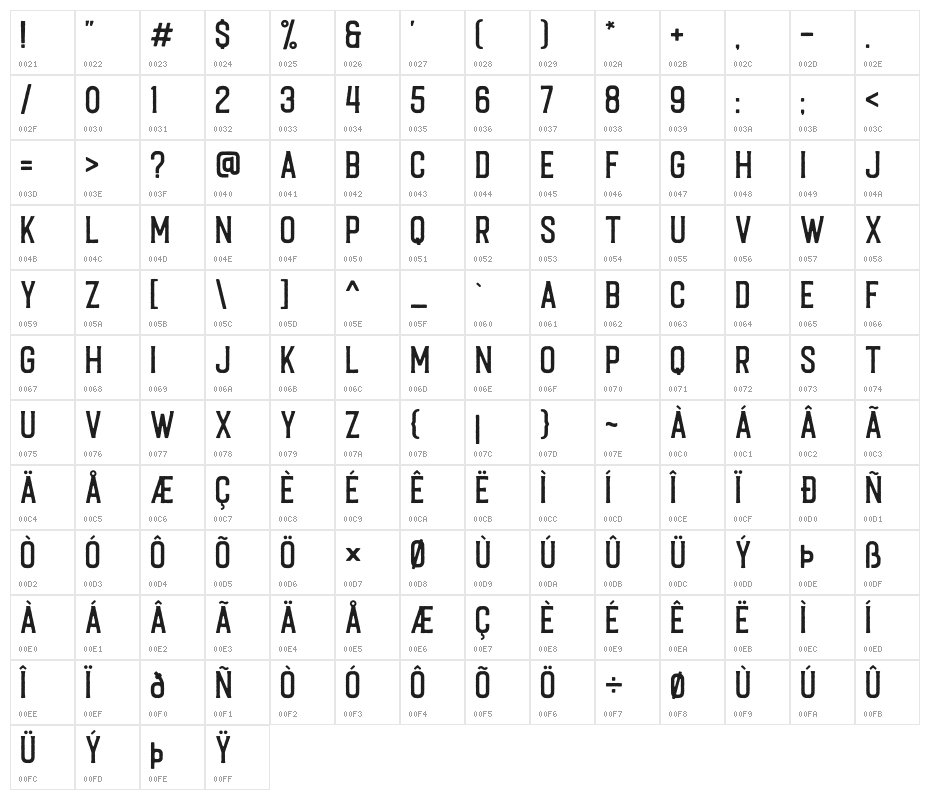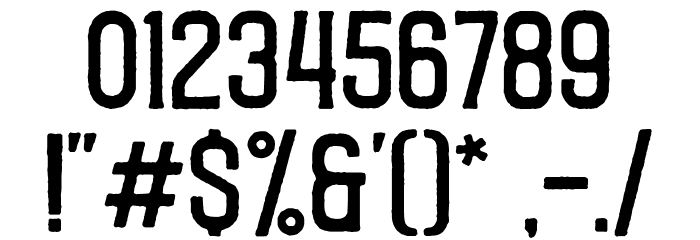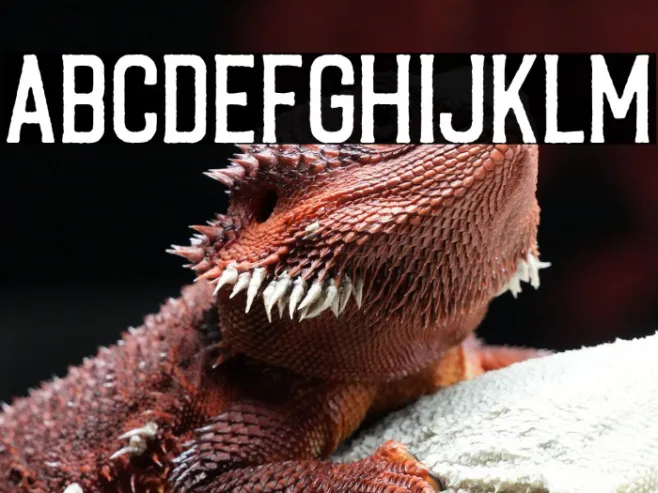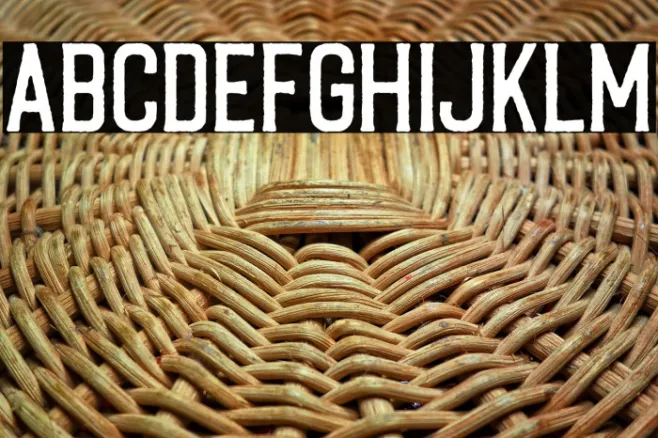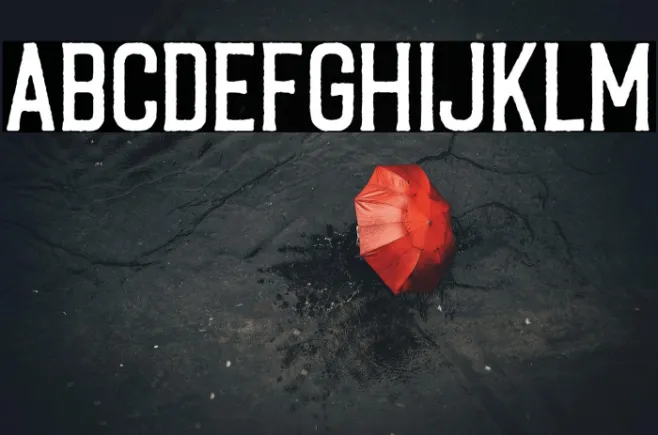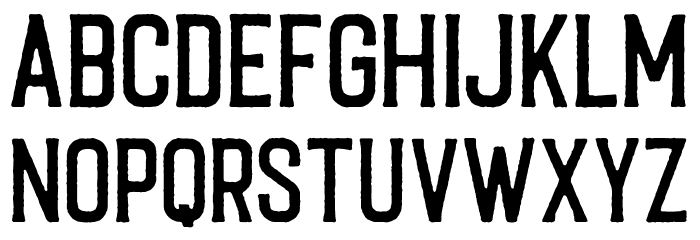
CaligorEdge Font
CaligorEdge Description
This font features a bold and rugged design with a distinctly industrial feel. The characters are uppercase with a slightly condensed width, giving a compact and sturdy appearance. The edges are slightly rough, adding a textured, worn look that suggests a vintage or retro aesthetic. The numerals and special characters maintain the same boldness and texture, ensuring consistency across all glyphs. This font is well-suited for projects that require a strong, impactful presence, such as posters, signage, or branding materials that aim to convey strength and durability.
| Proposed Projects | Ideal for posters, signage, branding, and any design requiring a strong, impactful presence. |